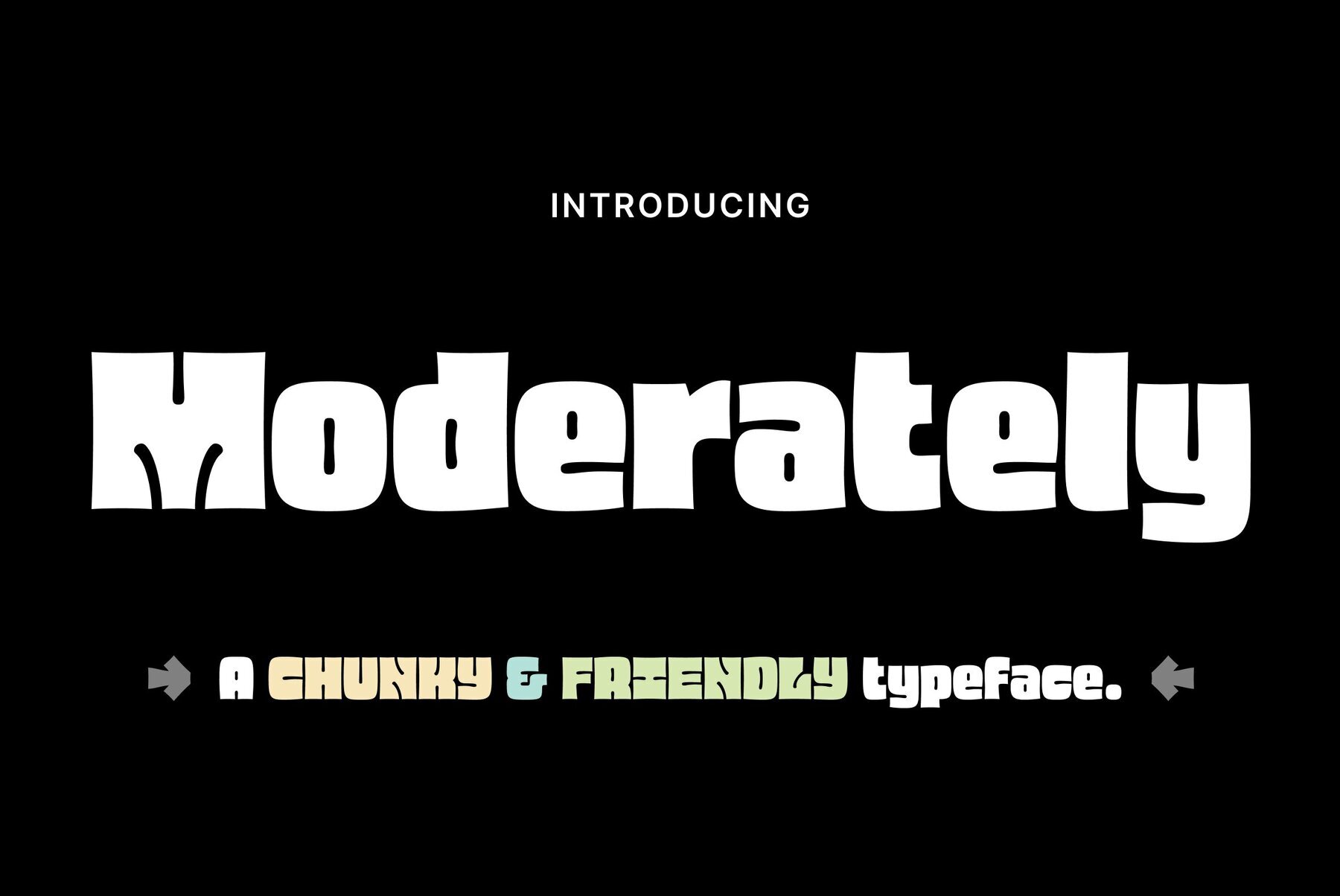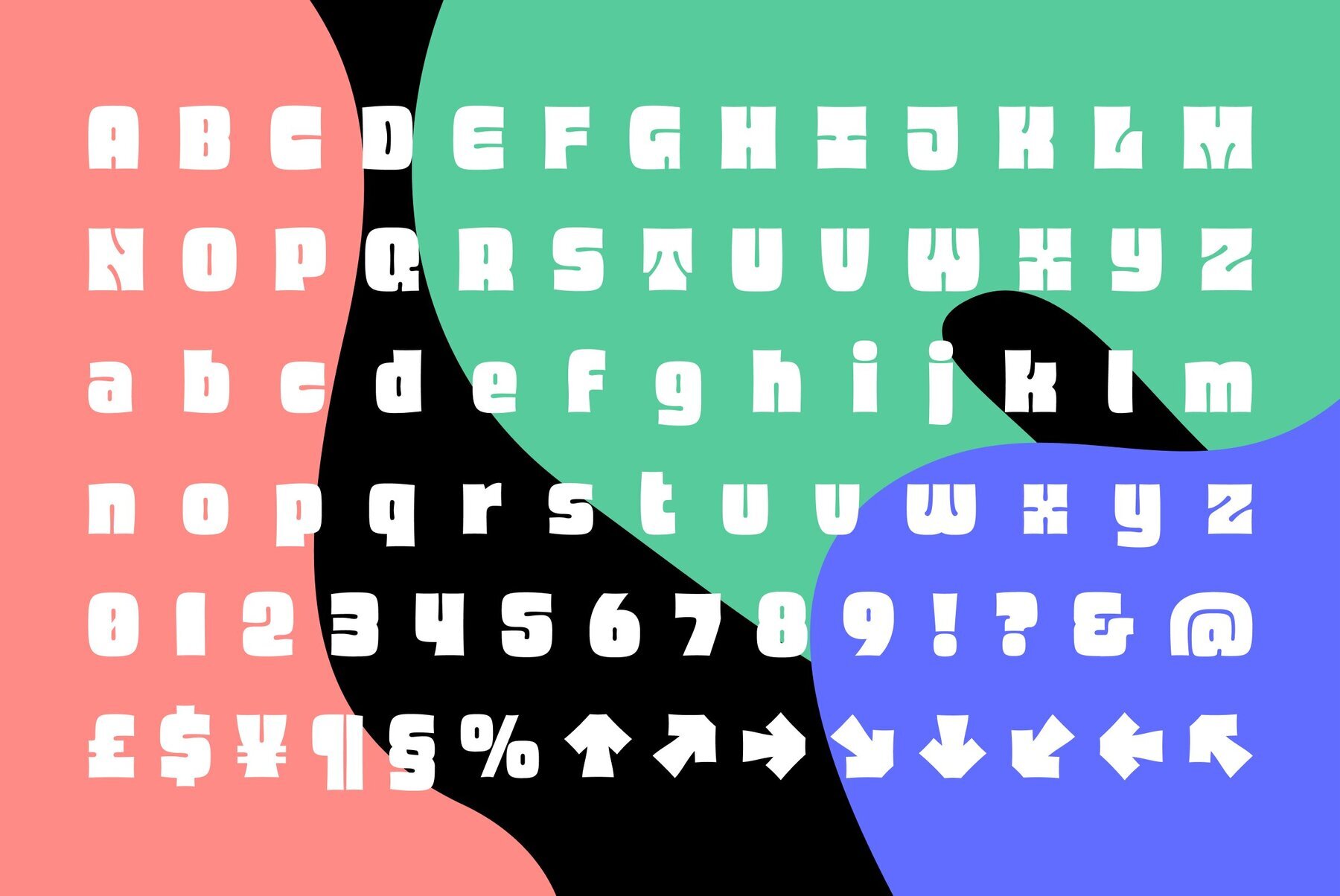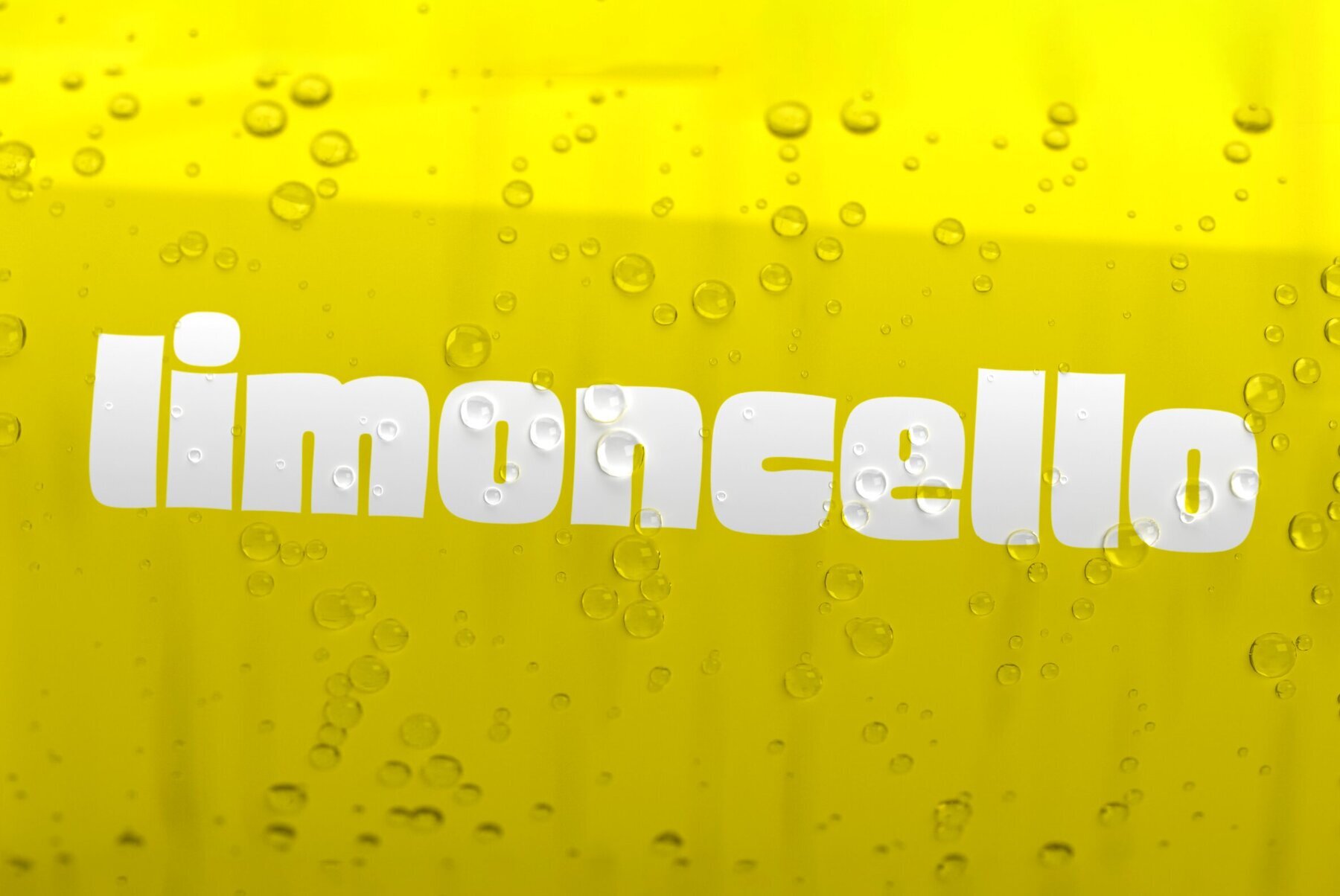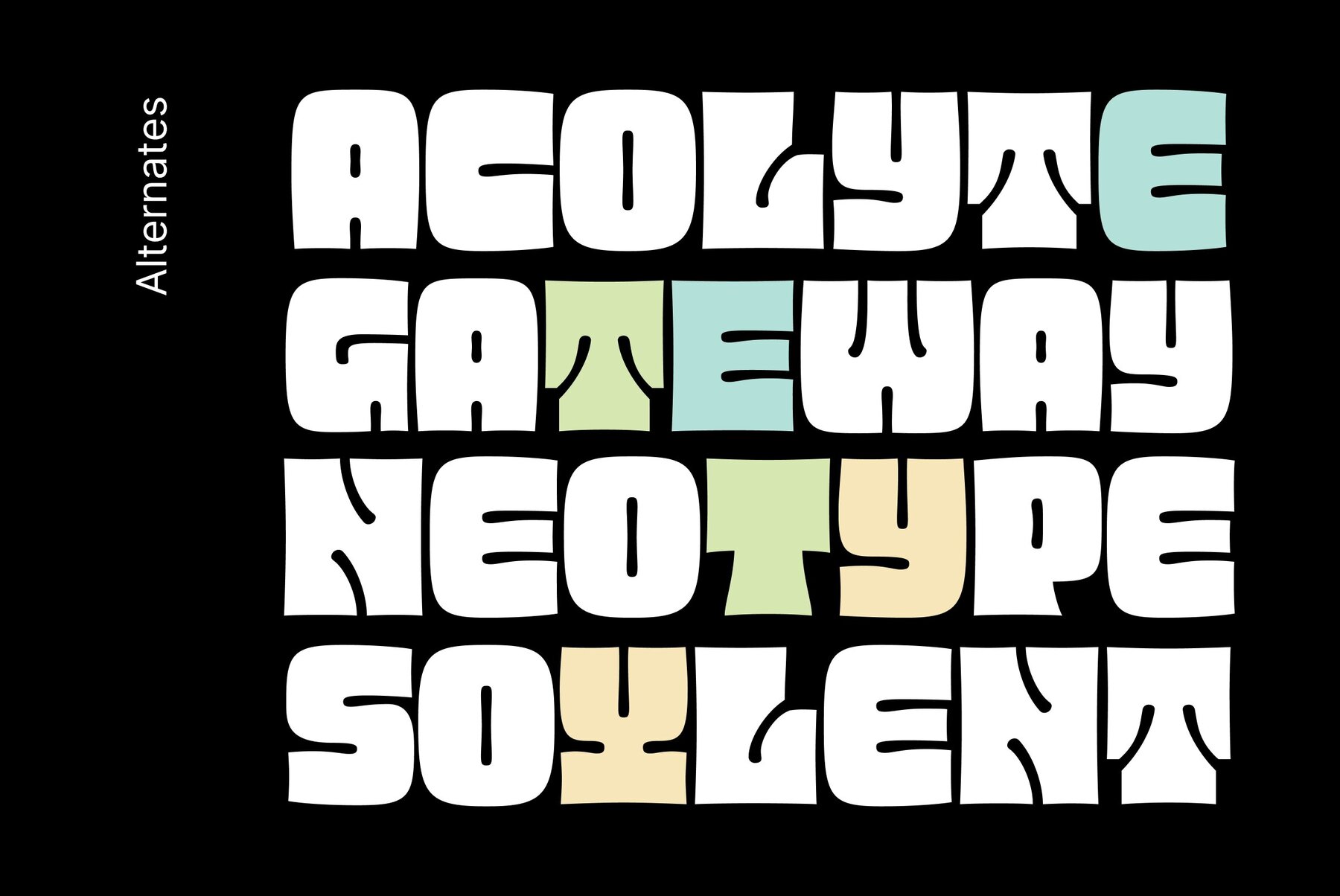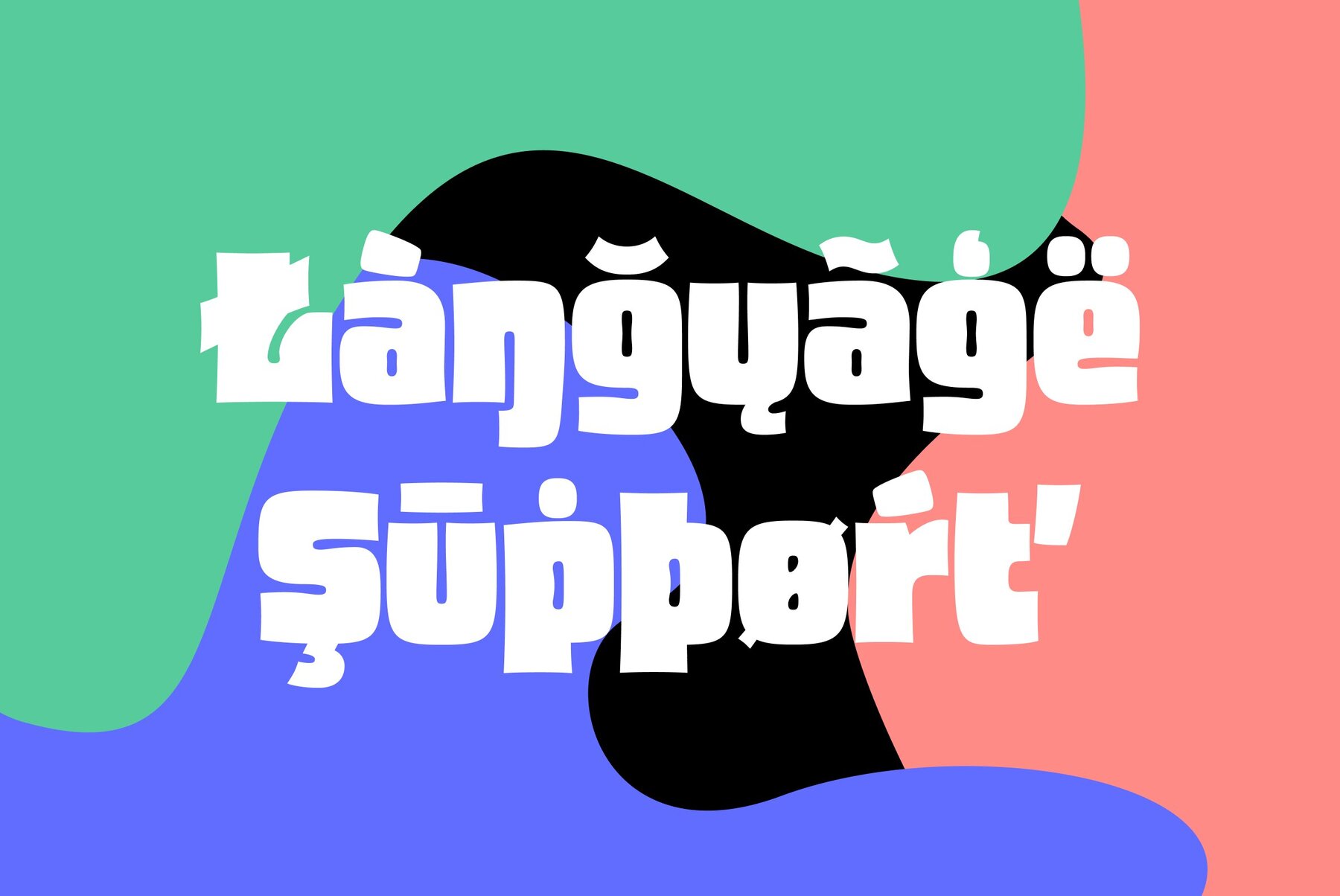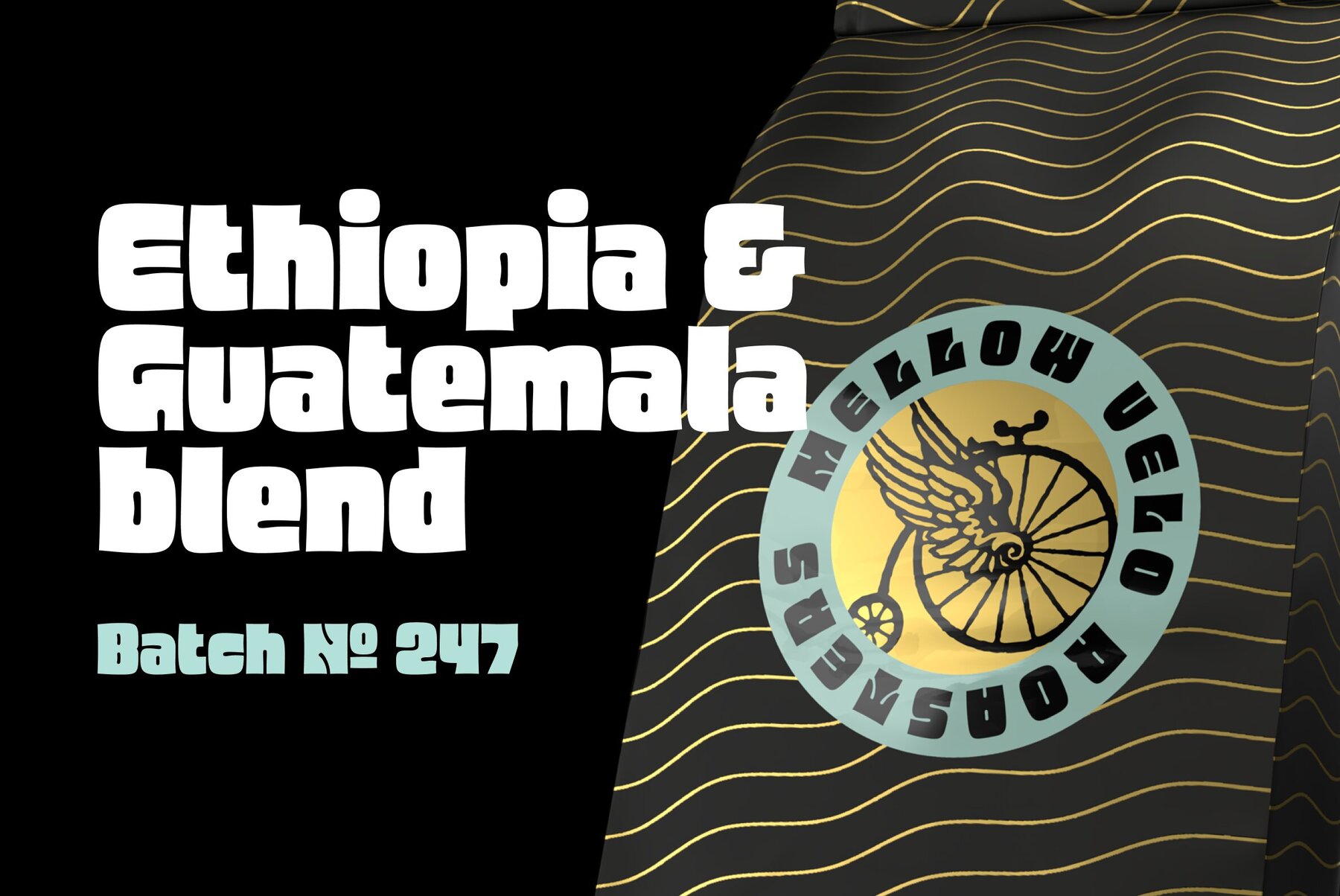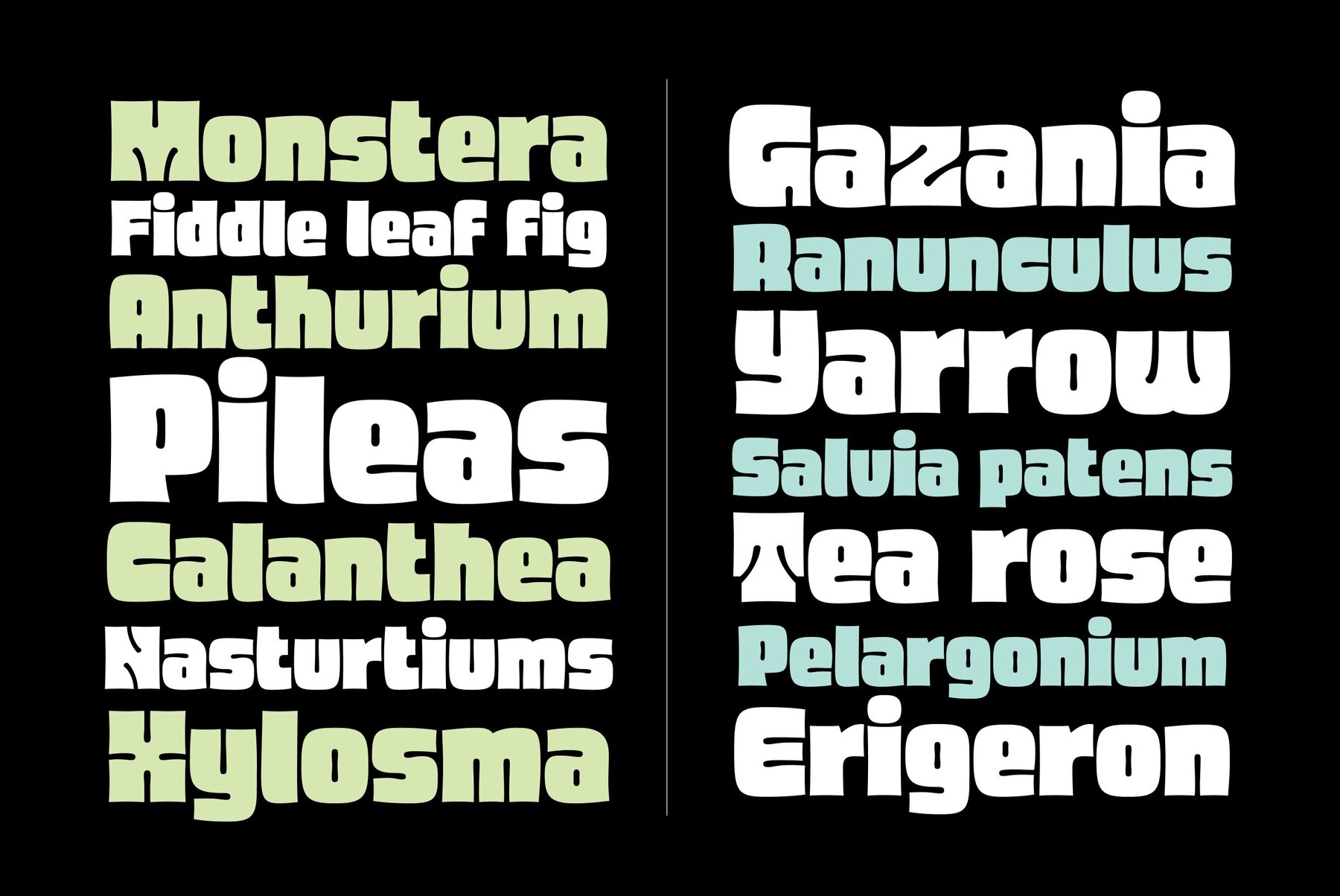
Introducing Moderately, a chunky and friendly typeface that makes a bold statement. This high-impact font is specifically crafted for designers seeking a display typeface with presence, perfect for applications where large, expressive type is a must. The defining features of Moderately include a generous x-height, soft curves, and tight spacing, ensuring a punchy and fresh aesthetic. Moderately is a deliberate departure from your contemporary sans with nary a straight line to see, embracing the organic and dynamic qualities reminiscent of blocky Art Nouveau typefaces, notably inspired by the works of Alfred Roller. While drawing influence from psychedelic / Art Nouveau revival typefaces of the 1960s, Moderately strikes a contemporary balance, delivering a design that is both impactful and approachable. Each glyph in Moderately attempts to maximize its space within the em square, incorporating slim carve outs for counters and apertures. The name "Moderately" adds a touch of irony, as this typeface is anything but plain – it exudes affable confidence and subtle flair. Created with versatility in mind, Moderately offers broad support for Latin-based languages, ensuring its adaptability for a wide range of creative projects.